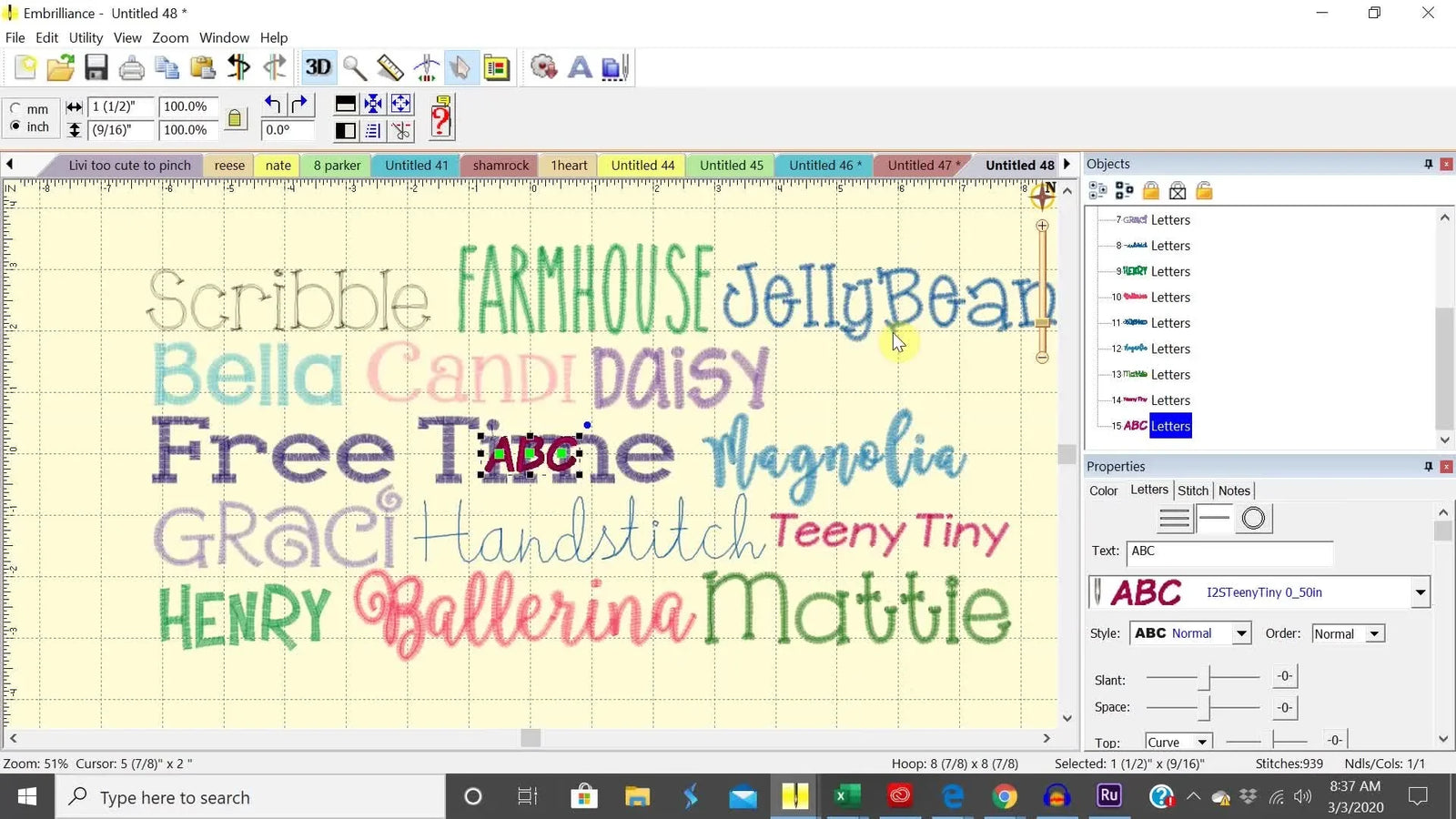
# The Ultimate Guide to Embroidery Font Charts: Reducing Customer Chaos & Streamlining Production
If you run a home embroidery business—whether it’s a single-needle hustle or a growing multi-needle operation—you know the specific dread of the "indecisive customer." They ask for “something cute,” you email five font names, they can’t visualize any of them, and you end up in a 20-message thread that eats up your entire morning profit margin.
But the problem isn't just communication; it's **production reliability**. When a customer blindly picks a font that is too wide for a pocket or too dense for a knit, *you* are the one who has to deal with the thread breaks, puckering, and ruined blanks.
A professional Font Chart is your first line of defense. It turns your invisible digital assets into a visual menu that sets boundaries. In this guide, we will break down the workflow used by pros (inspired by the "Embroidery Nurse" method) and layer in the **shop-floor realities**—from needle selection to hoop choices—that ensure those fonts actually stitch as good as they look.
## The Customer-Choice Shortcut: Why a Font Chart is actually a "Production Contract"
A font chart is more than just “pretty organization.” It is a communication tool that reduces revisions, prevents sizing mistakes, and steers customers away from fonts that are technically unsafe for their specific garment.
**The Cognitive Shift:**
When a customer sees a "Tall Skinny" font next to a "Wide Chunky" font, they instantly understand geometry without you explaining it.
* **Visual Anchor:** They see that `Wide Font` + `Small Pocket` = `Impossible`.
* **Production Benefit:** You stop getting requests for designs that require 50% shrinkage (which ruins stitch density and breaks needles).
From a profitability standpoint, this is where you protect your time. Fewer redesigns mean fewer “can we change it?” moments, and fewer re-hoopings. If you are stitching names on backpacks, polos, or scrub jackets, your font choice is the difference between “clean and readable” and “bird’s nest disaster.”
## The “Hidden” Prep: Filtering Your Digital Arsenal
Before you open your software (Embrilliance Essentials), you need a strategy. Do not dump every font you own into this chart.
**The "Safe List" Rule:**
Only include fonts you are willing to stitch repeatedly. If a font has 15,000 stitches for a 2-inch name, or if it constantly snaps thread because of poor digitization, **leave it off the chart**. The chart is a menu; don't put items on the menu that burn down the kitchen.
**Rename for Sales, Not Sorting:**
Your software might call a font `BX_Script_442_v2`. Your customer needs to see `Elegant Script`. Kelly (Embroidery Nurse) demonstrates renaming fonts to match customer intent (e.g., calling a font "Handstitch").
**Prep Checklist (The "Pre-Flight" Safety Check):**
* **Format Check:** Confirm you are using **BX-capable fonts**. Formatting individual `.PES` or `.DST` letters manually is a waste of life.
* **Size Standard:** Decide on a "Reference Size" (e.g., **1 inch** height) for the chart so comparisons are honest.
* **The "Problem Solver":** Include one very narrow font for long names on tight spaces (like stocking cuffs).
* **The "Blocker":** Include one ultra-wide font to visually demonstrate why it usually *won't* fit.
* **Hidden Consumables:** Have your **notebook** ready to record the *actual* file names next to your new "Customer Names" so you don't forget which is which later.
## Clean Canvas Setup: Removing Visual Noise
To make your chart look like a catalog and not a screenshot of a computer program, you need to strip away the interface elements.
**The Action Steps:**
1. Open Embrilliance Essentials.
2. Go to the **View** menu.
3. **Uncheck “Draw Hoop.”** prompt: *The hoop outline disappears.*
4. **Uncheck “View Grid.”** prompt: *The background becomes pure white.*
**Why this matters:**
The hoop boundary is for *you*, not the customer. Showing the hoop often confuses clients about scale. A clean white background allows you to crop the image later without getting grid lines caught in your text.
## Building the Layout: The Logic of "Hooping Stations" Applies Here
Now, use the **Create Letters** tool to type the font's display name using that specific font.
**Efficiency Insight:**
If you are building this chart for a high-volume business, think of this software setup like your physical workspace. Just as **hooping stations** organize your physical barriers to ensure consistent garment placement, your chart organizes your *digital* barriers to ensure consistent design choices. A disorganized chart leads to disorganized orders.
**Tactile Tip:**
As you type with BX fonts, watch how the letters join. If you see gaps in a script font on screen, they will likely be gaps on the fabric. Fix the kerning (letter spacing) *now* in the master file, or you will be fixing it on every single order for the next five years.
- Level 2 (Tool): if hooping causes hoop burn, wrist strain, or re-hooping delays, consider magnetic hoops to clamp without friction.